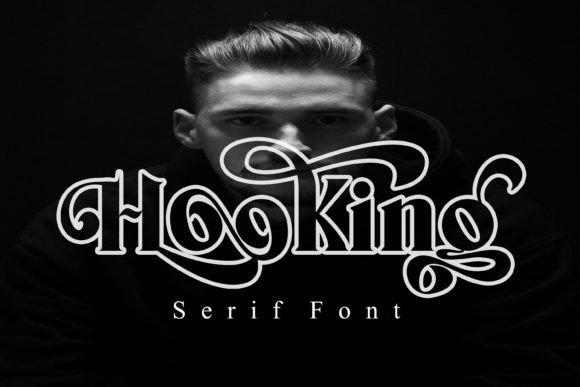
Behold Hooking Font, the serif sensation that's turning heads in the world of Cricut creativity. Prepare to be captivated by its exquisite elegance and audacious boldness, a harmonious fusion that exudes sophistication and charm. Hooking Font is the ultimate expression of versatility, effortlessly adapting to a myriad of projects, from heartfelt wedding invitations and enchanting stationary art to captivating social media posts that ignite engagement like never before.
Unleash your inner artist and let Hooking Font dance across your Cricut creations, transforming them into masterpieces that leave a lasting impression. With its alluring curves and commanding presence, Hooking Font effortlessly commands attention, making your designs shine brighter than the stars. Say goodbye to ordinary fonts and embrace the extraordinary with Hooking Font, your gateway to design greatness.
Create breathtaking wedding invitations that capture the essence of everlasting love, where every letter dances in perfect harmony, conveying the depth of your emotions. Elevate your stationary art to new heights of elegance, leaving a trail of awe and admiration wherever it goes. Hooking Font's timeless beauty will add a touch of magic to your designs, making them cherished keepsakes that stand the test of time.
Take your social media presence to stratospheric heights with Hooking Font, crafting posts that captivate audiences and leave them begging for more. Its distinctive style will make your content leap off the screen, ensuring that every post becomes an instant sensation. Experience the thrill of gaining followers, likes, and shares as your Hooking Font creations generate a buzz that's hard to ignore.
But Hooking Font is more than just a collection of letters; it's an invitation to embark on a creative odyssey, where your imagination knows no bounds. It's a font that ignites passion, fuels creativity, and empowers you to leave your unique mark on the world. Join the Hooking Font revolution today and unlock the gateway to design brilliance.